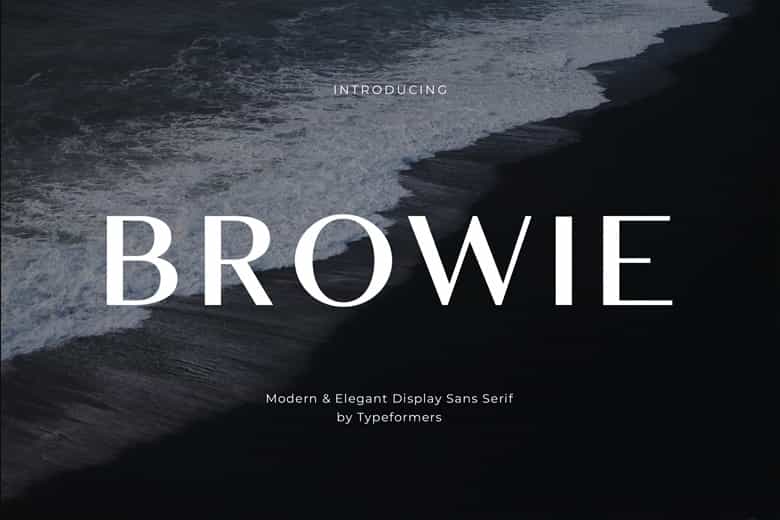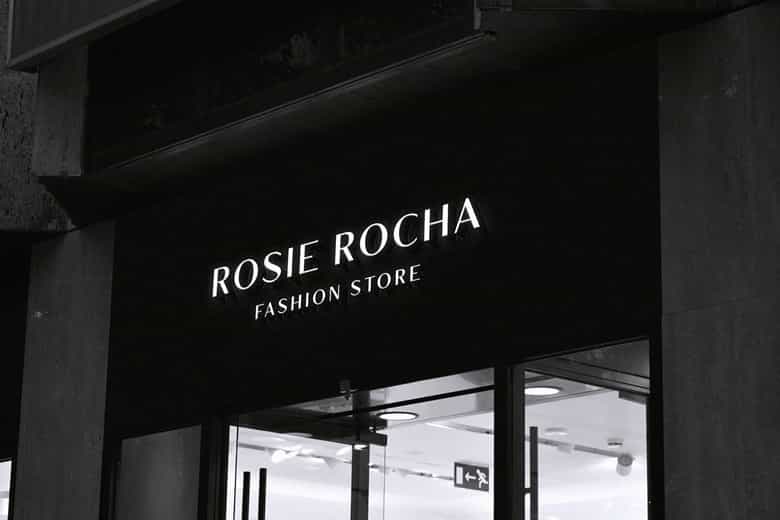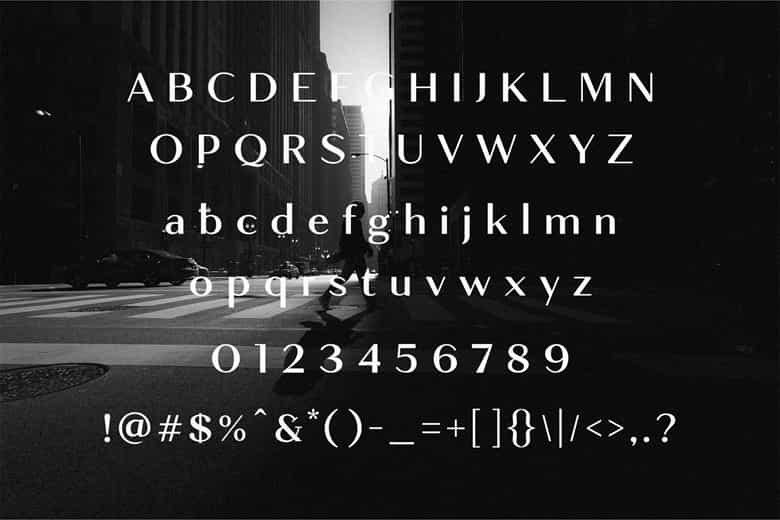
Browie is a new sans serif typeface with perfect combination of sleek, clean lines with sophisticated curves. This is very versatile for both print and digital mediums due to its minimalist design. Ideal for contemporary branding, editorial design, and high-end websites,